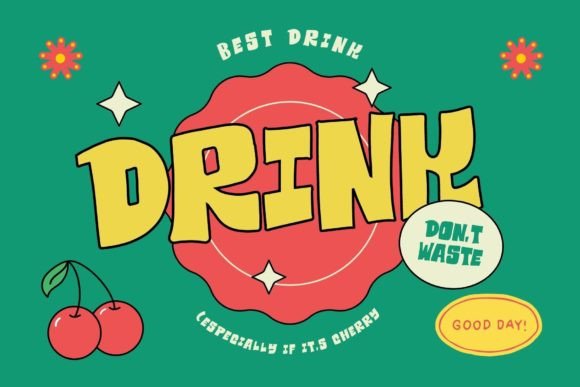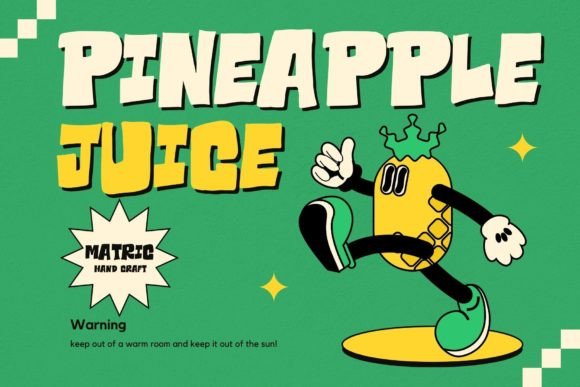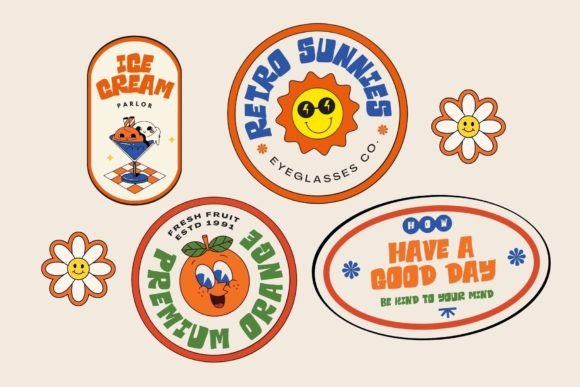
Introduction to Matric Handcraft Font
Matric HandCraft is a display font that has a striking combination of bulk, vintage, and attractiveness.
Each letter is meticulously crafted with bold lines and a retro vibe, creating a sense of power and nostalgia Whether youโre creating branding or print materials, this font will add a touch of sophistication and style to your work.
Key Features of Matric Handcraft Font
Matric Handcraft Font offers exceptional quality and versatility, making it a valuable addition to your design toolkit. Whether you’re creating for personal projects or commercial use, Matric Handcraft Font delivers professional results.